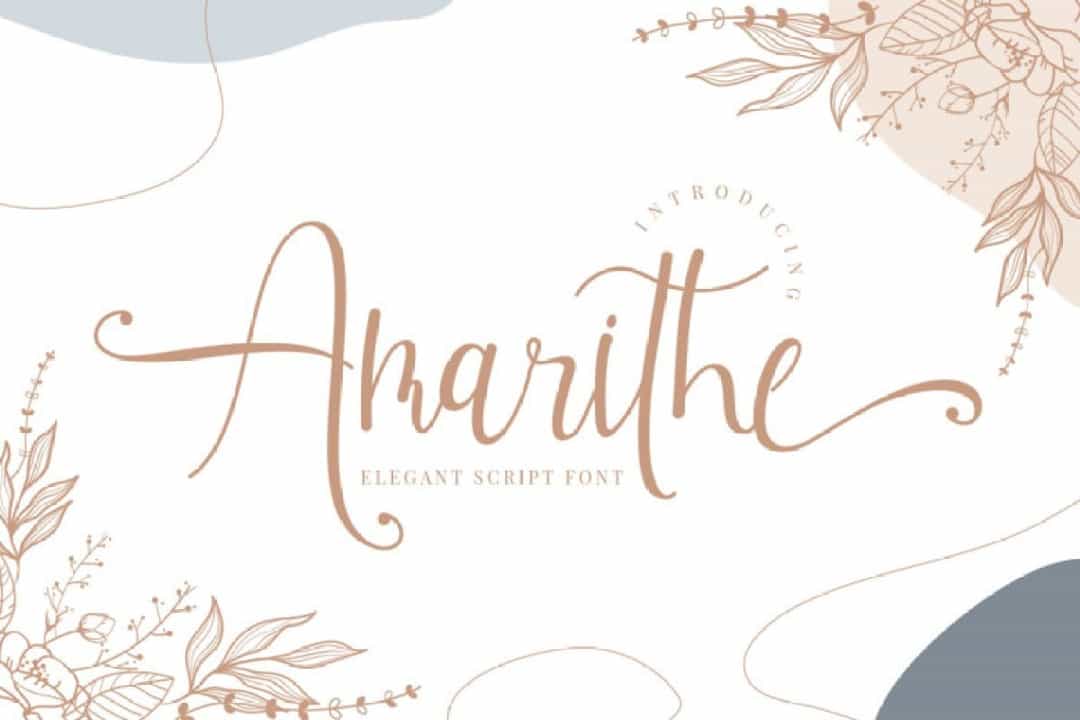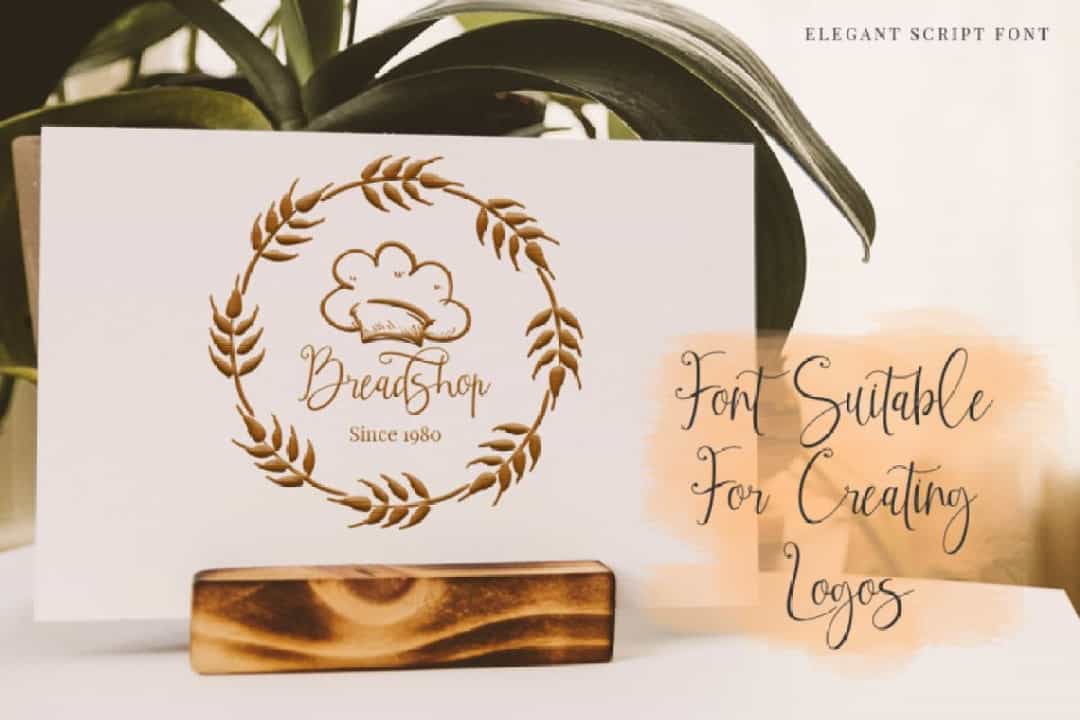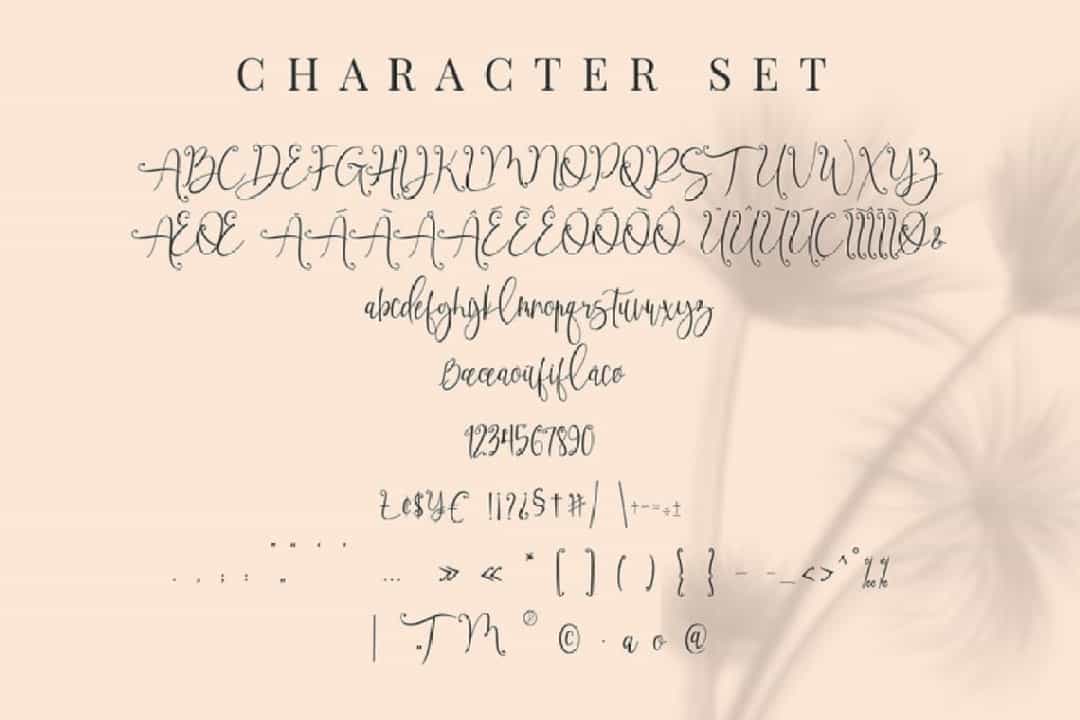
Amarithe is a beautiful, sleek modern font for wedding calligraphy. This font is somewhat delicate, but at the same time it is modern and can be successfully used in different projects like wedding, anniversary, birthday, greeting cards, logos, branding, invitation cards, posters, packaging, stationery, websites and any other project that needs a personal and elegant touch.